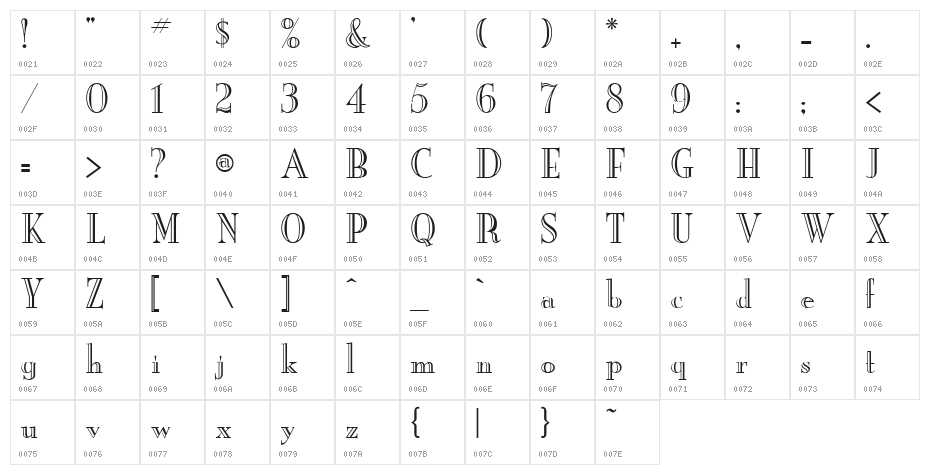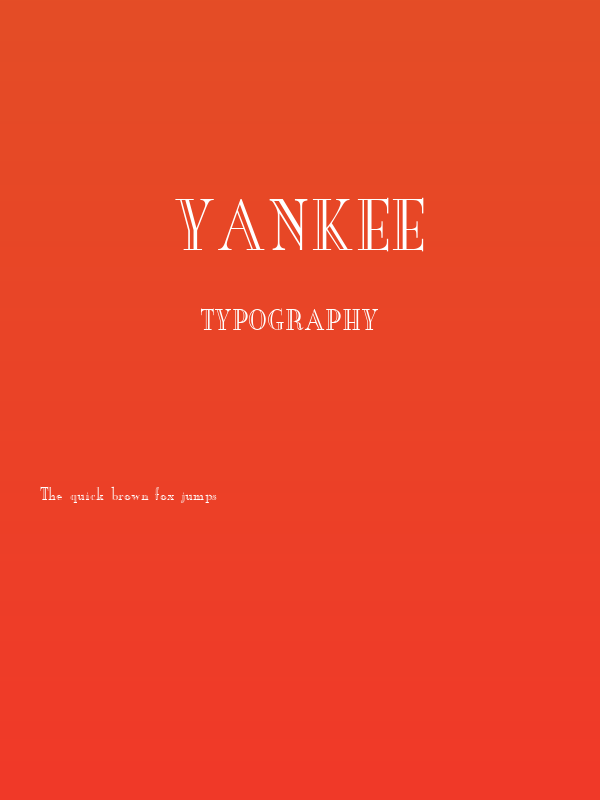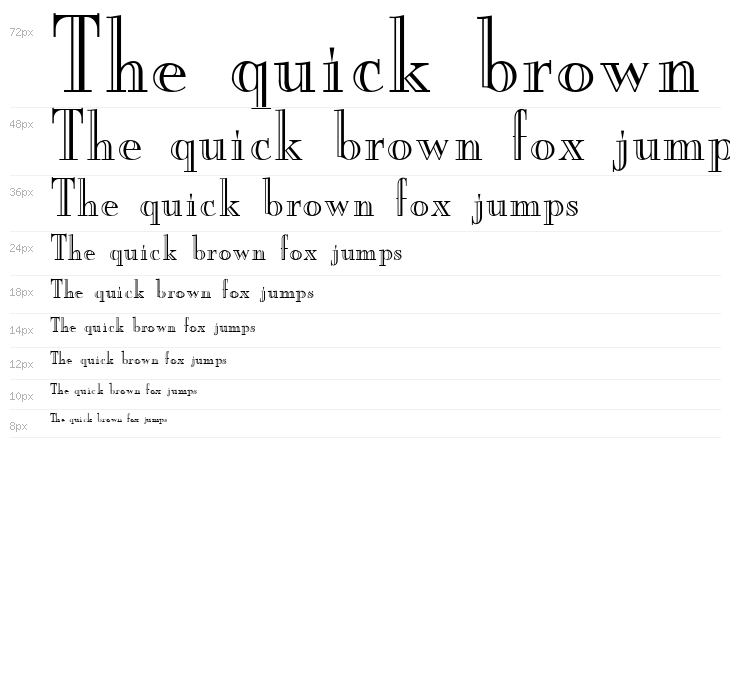
Yankee Font
Yankee Description
This font features a distinct and elegant design with high contrast between thick and thin strokes, giving it a sophisticated and classic appearance. The uppercase letters are tall and stately, while the lowercase letters maintain a consistent style with a touch of flair, particularly in the ascenders and descenders. The numerals are bold and prominent, ensuring readability. Special characters are crafted with attention to detail, adding to the font's versatility. The overall design is reminiscent of traditional serif fonts but with a modern twist, making it suitable for a variety of applications.
| Use Case | Headlines, Logos, Editorial Design |
| Proposed Projects | Ideal for editorial design, luxury branding, wedding invitations, and high-end product packaging. |